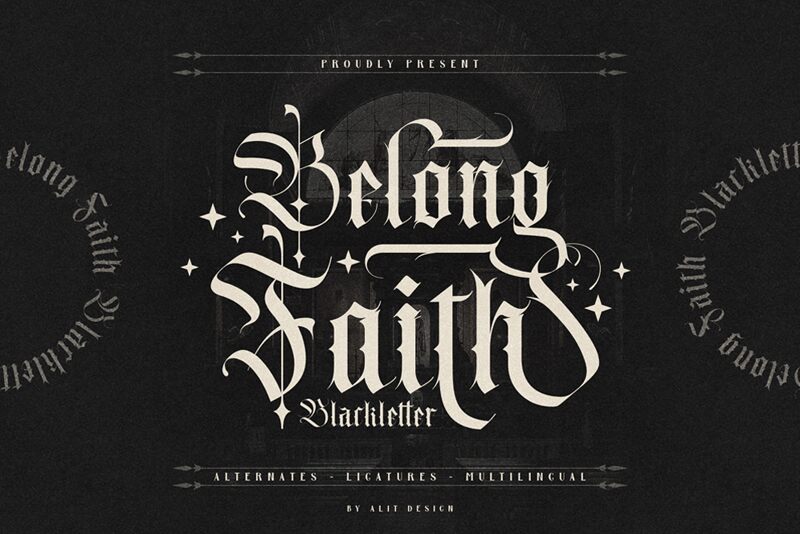
Belong Faith, designed by Alit Design, is the perfect gothic typeface for all your medieval-inspired projects. Its semi-light weight and condensed width make it ideal for titles, headlines, and branding materials. Belong Faith's blackletter style adds a touch of class and sophistication to any design project. Whether you're creating posters for a Renaissance fair or designing a logo for a historical society, this font is sure to impress. So why wait? Incorporate Belong Faith into your next project and elevate your design game to the next level!
Belong Faith